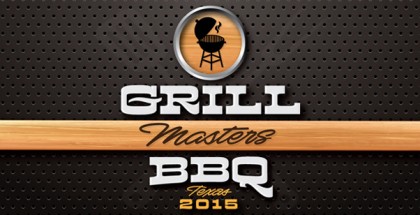
Burford font family
Burford font family is a new serif font family created by the American type designer Kimmy Kirkwood. In fact, while on a journey in Europe, she was so impressed by the large variety of different scripts she encountered that she instantly began sketching letters that later grew into a full scale typeface. It was later shaped and digitalized resulting in a beautiful layer-based font with a distinctive retro look and taste of the 1920’s.
The most impressive feature of the Burford font family is the fact that it is comprised of 18 layering typefaces. There are 5 are bottom, 5 base, 3 top and two additional sets of extras. They are designed in such manner as to co-exist perfectly when used one on top of the other with each of them having a set of Stylistic alternatives for 9 letters. But Kimmy Kirkwood spared a thought for those who cannot use premier design programs and thus won’t be able to use the effect of the layers. In such case 13 of the 18 fonts or the so called Burford Basic package can be used separately with great success. Also a very rich multilingual support is provided for Latin, Greek and Cyrillic based languages.
We feel that two of the fonts deserve a special mention – Extras Set A and Extras Set B. They offer around 100 elements each that work greatly with the other 16 fonts and complement them perfectly. Extras include catchwords, line breaks, anchors, banners, borders, corners, etc.
As it was mentioned above Burford typeface family is designed by Kimmy Kirkwood and released by her type foundry Kimmy Design. A Chapman University graduate, Kimmy is a very talented young designer that has already produced quite a few bestselling font families (check the links below). She has a wide range of interests apart from the type design – logo/brand design, retouching and photo manipulation which could be the explanation behind her success.
Designer: Kimmy Kirkwood
Publisher: Kimmy Design